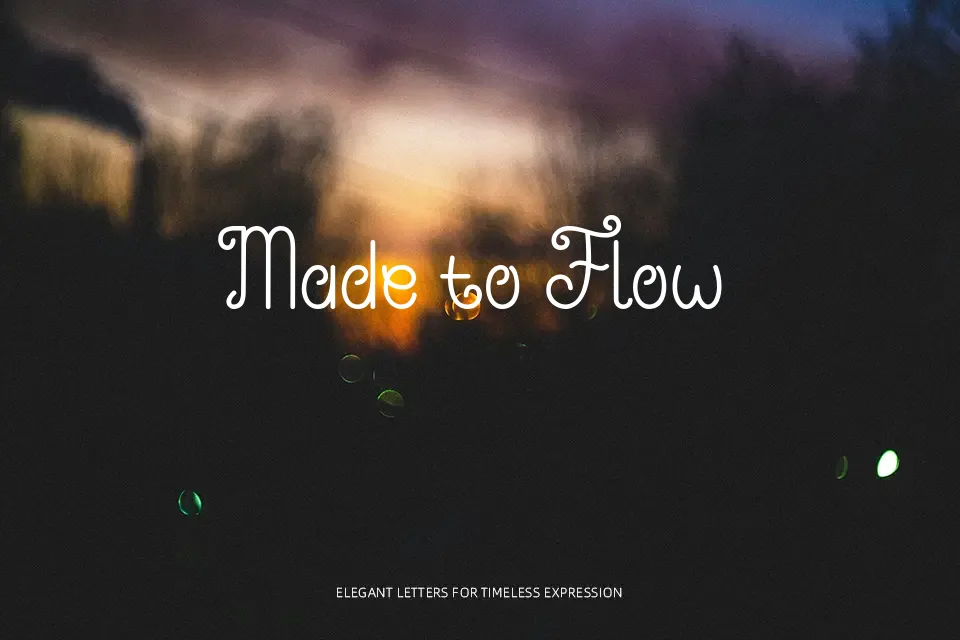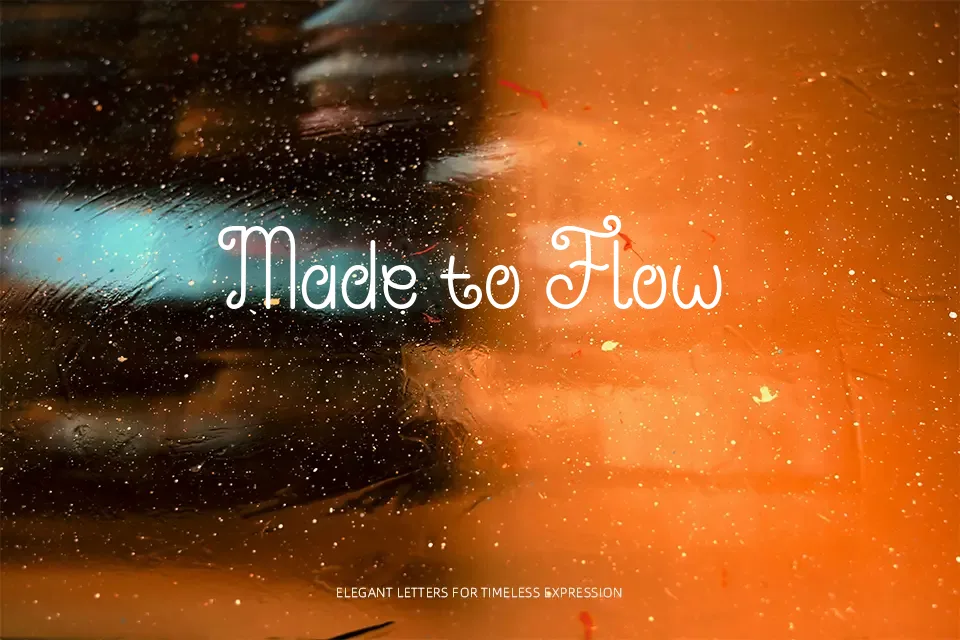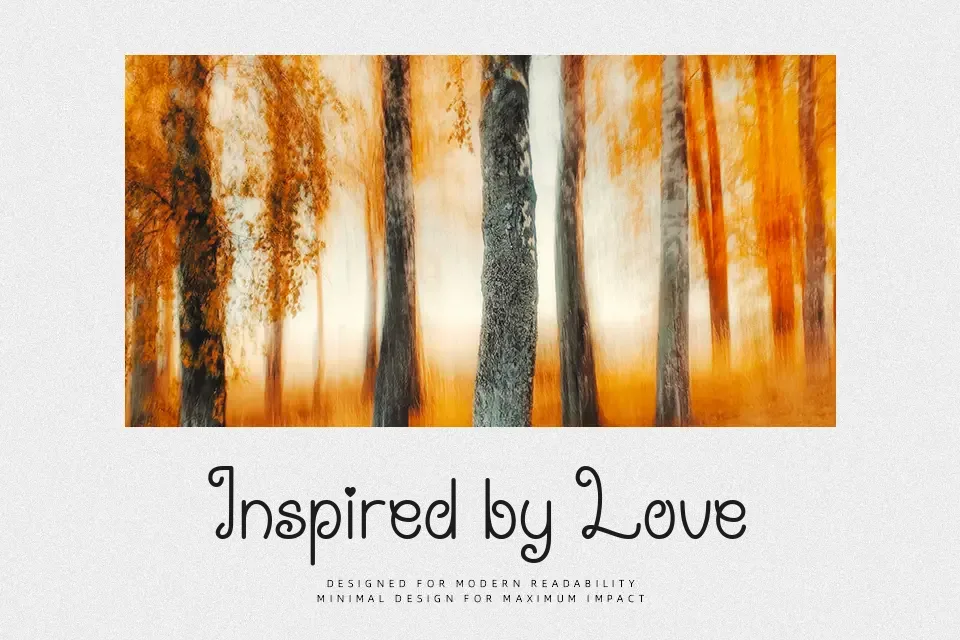
Sweet Gracia Font
Designed by Jprint Studio
Sweet Gracia Font presents a casual cursive structure defined by rounded terminals, consistent line weight, and open counters that create an inviting typographic rhythm. The letterforms maintain balanced proportions with generous loop spacing, ensuring words remain distinct when set in medium or large display arrangements. Because the strokes lack contrast, the typeface preserves its shape cleanly against busy background graphics, making it suitable for customized party stationery, apparel designs, and artisanal food labels. However, the connected script forms and subtle slant diminish legibility in extended text blocks. The uniform thickness supports quick visual recognition in titles but reduces reading comfort across dense editorial columns.
Best For: greeting card headings,craft product packaging,apparel graphics,children book titles
Not Ideal For: long editorial body text,dense financial tables,small mobile UI labels,technical documentation
Perfect for branding, headline, and invitation, with a creative and handwritten style.